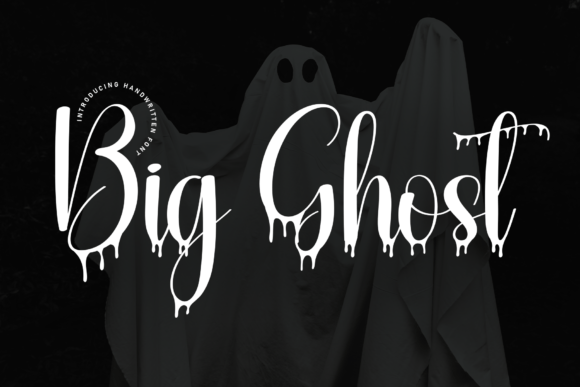
Unleash the Spook: Discover the Big Ghost Font for Hauntingly Beautiful Designs
Are you a designer or crafter looking to add a touch of spookiness to your Halloween or horror-themed designs? Look no further than the Big Ghost Font, a cool and eerie handwritten script font that’s sure to send shivers down your audience’s spine. With its unique and hauntingly beautiful look, Big Ghost is the perfect addition to any design project that requires a dash of the macabre.
The Big Ghost Font: A Spooky yet Elegant Handwritten Script
Big Ghost is a carefully crafted handwritten script font that exudes a sense of mystery and intrigue. Its bold and expressive letters are perfect for creating eye-catching designs that are sure to stand out from the crowd. Whether you’re designing a Halloween-themed party invitation, a horror movie poster, or a spooky-themed craft project, Big Ghost is the ideal font to add a touch of eeriness and sophistication.
Key Features of the Big Ghost Font
- Unique and Handwritten: Big Ghost boasts a distinctive handwritten look that’s both elegant and spooky.
- Perfect for Horror and Halloween Themes: Its hauntingly beautiful design makes it an ideal choice for any horror or Halloween-themed design project.
- High-Quality Design: Big Ghost is designed with precision and care, ensuring a high-quality look that’s perfect for professional designs.
- Easily Customizable: The font is easy to customize, allowing you to adjust the size, color, and style to fit your design needs.
Design Ideas Using the Big Ghost Font
Big Ghost is a versatile font that can be used in a wide range of design projects. Here are some spooky and creative ideas to get you started:
- Halloween Party Invitations: Create spooky and eye-catching invitations that set the tone for a howling good time.
- Horror Movie Posters: Use Big Ghost to create terrifying movie posters that will leave audiences shivering in fear.
- Spooky-themed Crafts: Add a touch of eeriness to your craft projects, such as Halloween decorations, gift tags, or DIY cards.
- Haunted House Signage: Create creepy and atmospheric signage for haunted houses, hayrides, or other spooky attractions.
Tips for Using the Big Ghost Font
To get the most out of Big Ghost, here are some tips to keep in mind:
- Pair with Other Fonts: Combine Big Ghost with other fonts to create a unique and visually appealing design.
- Experiment with Colors: Try out different colors and textures to add depth and atmosphere to your design.
- Keep it Simple: Don’t overcomplicate your design – let the bold and expressive letters of Big Ghost take center stage.
In conclusion, the Big Ghost Font is a must-have for any designer or crafter looking to add a touch of spookiness to their Halloween or horror-themed designs. With its unique and hauntingly beautiful look, Big Ghost is sure to help you create amazing designs that will leave your audience shivering in fear. So why wait? Download Big Ghost today and unleash the spook in your designs!